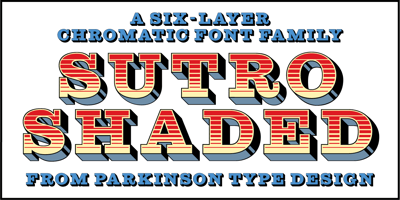
The Sutro Shaded Font is an excellent choice for designs that demand a powerful, retro, and distinctly three-dimensional aesthetic, perfect for capturing the charm of vintage signage and display typography. Imagine it gracing the logos of old-school diners, adding a striking, layered depth to carnival posters, or bringing a distinctive, nostalgic vibe to craft brewery labels. It's also perfectly suited for captivating event invitations for retro-themed gatherings, unique branding for barbershops, and any project where you want to evoke a sense of heritage, craftsmanship, and a bold, eye-catching presence. With its built-in shading and often robust letterforms, the Sutro Shaded Font is ideal for projects that aim for visual impact and a memorable impression.
What makes the Sutro Shaded Font truly exciting is its ability to instantly create a sense of depth and classic visual flair without complex layering in design software. It feels authentically reminiscent of hand-painted signs and vintage advertising, instantly giving your designs a warm and established quality. This font is perfect for establishing a brand identity that feels both timeless and dynamically engaging, ensuring your message is not just seen, but appreciated for its distinctive and artful character. The inherent shading provides an immediate visual pop, making it ideal for headlines and prominent display text. The Sutro Shaded Font Free Download offers a fantastic opportunity to infuse your projects with this unique spirit.
The Sutro Shaded Font is typically a specialized display font designed to achieve its unique visual effect. While it might not have an extensive range of traditional weights (like thin or light), its "family members" or accompanying styles are usually variations that enhance its shaded or dimensional qualities. You can often expect to find:
• Sutro Shaded Regular: The primary font with its built-in shading effect.
• Sutro Shaded Outline: A version providing just the outline, allowing for custom fills and layering.
• Sutro Shaded Solid: A solid, unshaded version that can be used for backgrounds or simpler applications, or layered beneath the shaded version for a multi-color effect.
• Sutro Shaded Fill: Sometimes a separate layer designed to be colored and placed underneath the outline to complete the shaded look.
These variations provide flexibility for different design applications, allowing you to create engaging visual hierarchies and maintain a consistent, powerful aesthetic across all your projects.